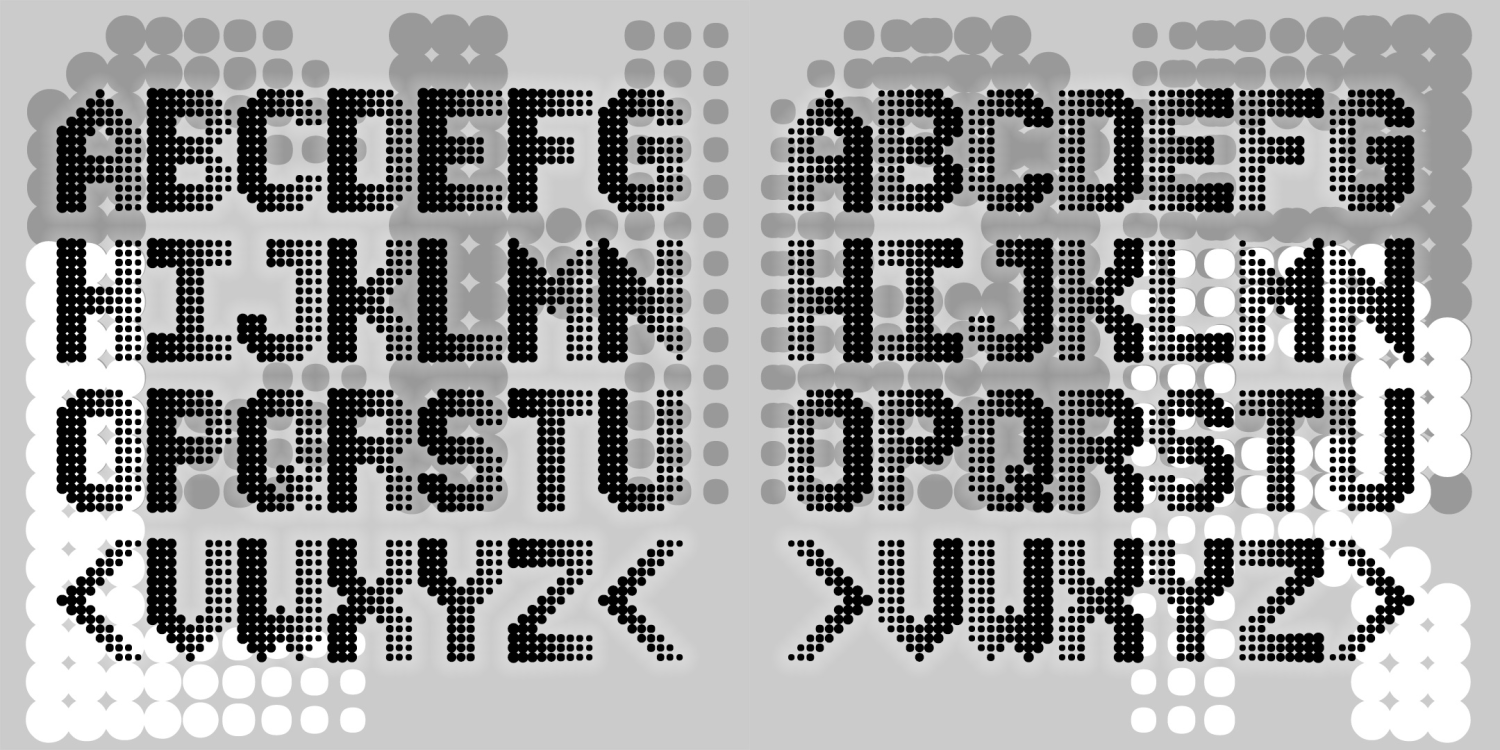
The Chaser fonts are designed to look like those on electronic signboards, using a 9 x 13 LED grid for each character. Unlike the similar fonts, mine use weighted dots to imply movement, as if the text were scrolling to the left or to the right. Looks…